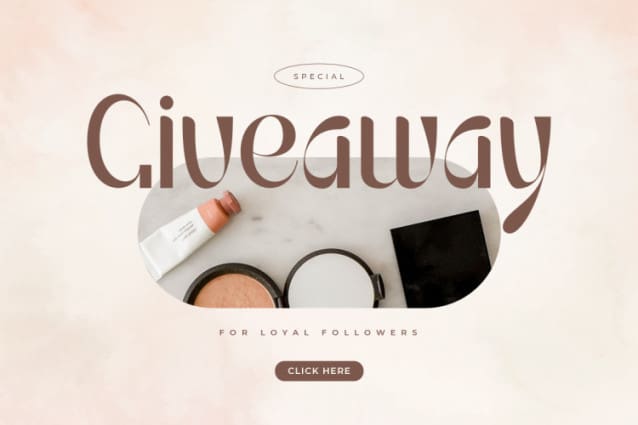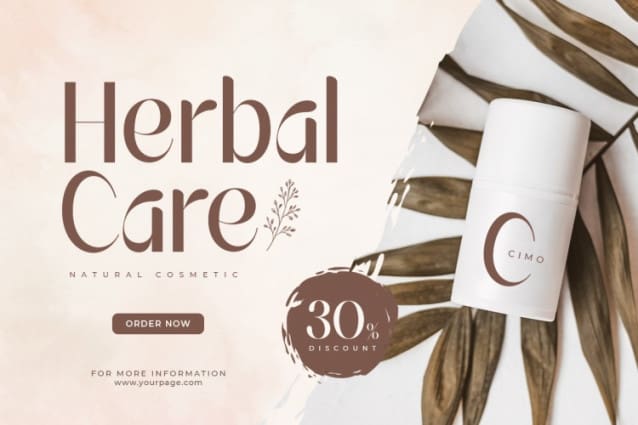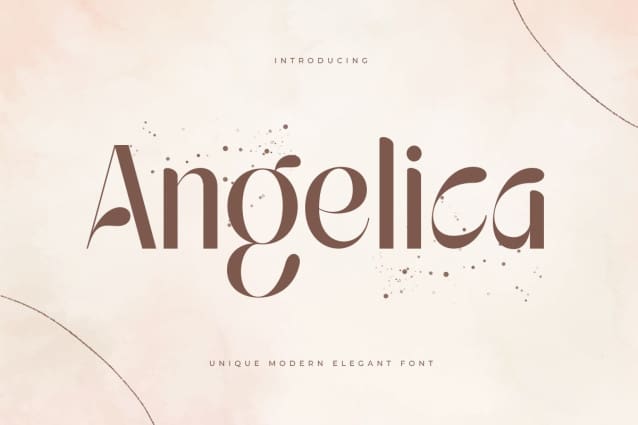
Angelica Sans Font
Angelica Sans Font is a Unique Modern Elegant Font. In a new generations, we analyze that any designer or brand owner need to make their brand standout. As our focus that analyze any typeface that helps to leverage any logo design to look more modern and unique. We prepared this font with any unique characters to help you create unlimited variations for your creative needs.